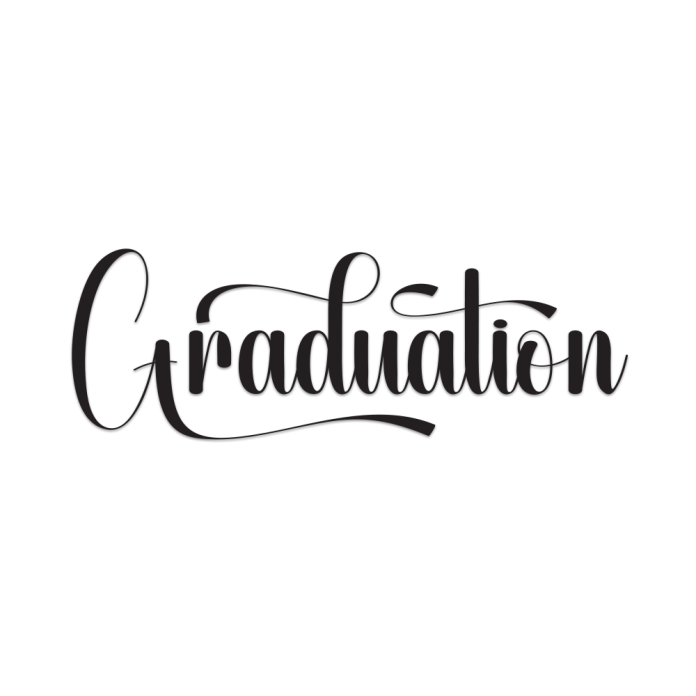
Graduation is a sleek and graceful handwritten font that captures the spirit of achievement and new beginnings. With smooth curves and natural flow, it evokes a sense of celebration and pride — perfect for graduation announcements, yearbooks, or heartfelt congratulations.
Whether you're designing certificates, event invitations, or social media posts, Graduation brings a sophisticated, handwritten elegance that makes your message stand out.
Handwritten script style with elegant flourishes
Ideal for graduation cards, certificates, school events
Stylish uppercase & lowercase characters
Celebrate success with the refined charm of Graduation, a handwritten font that honors every milestone.